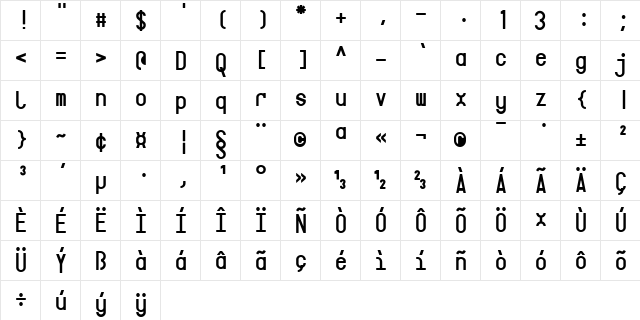
Targa MS Regular
Design Context for Targa MS Typeface
Targa MS offers clean, dependable letterforms without strong stylistic allegiance, making it a practical choice for designers who need flexibility.
Pro Tip: Use Targa MS in both headline and body roles to test its range before committing to a single application.